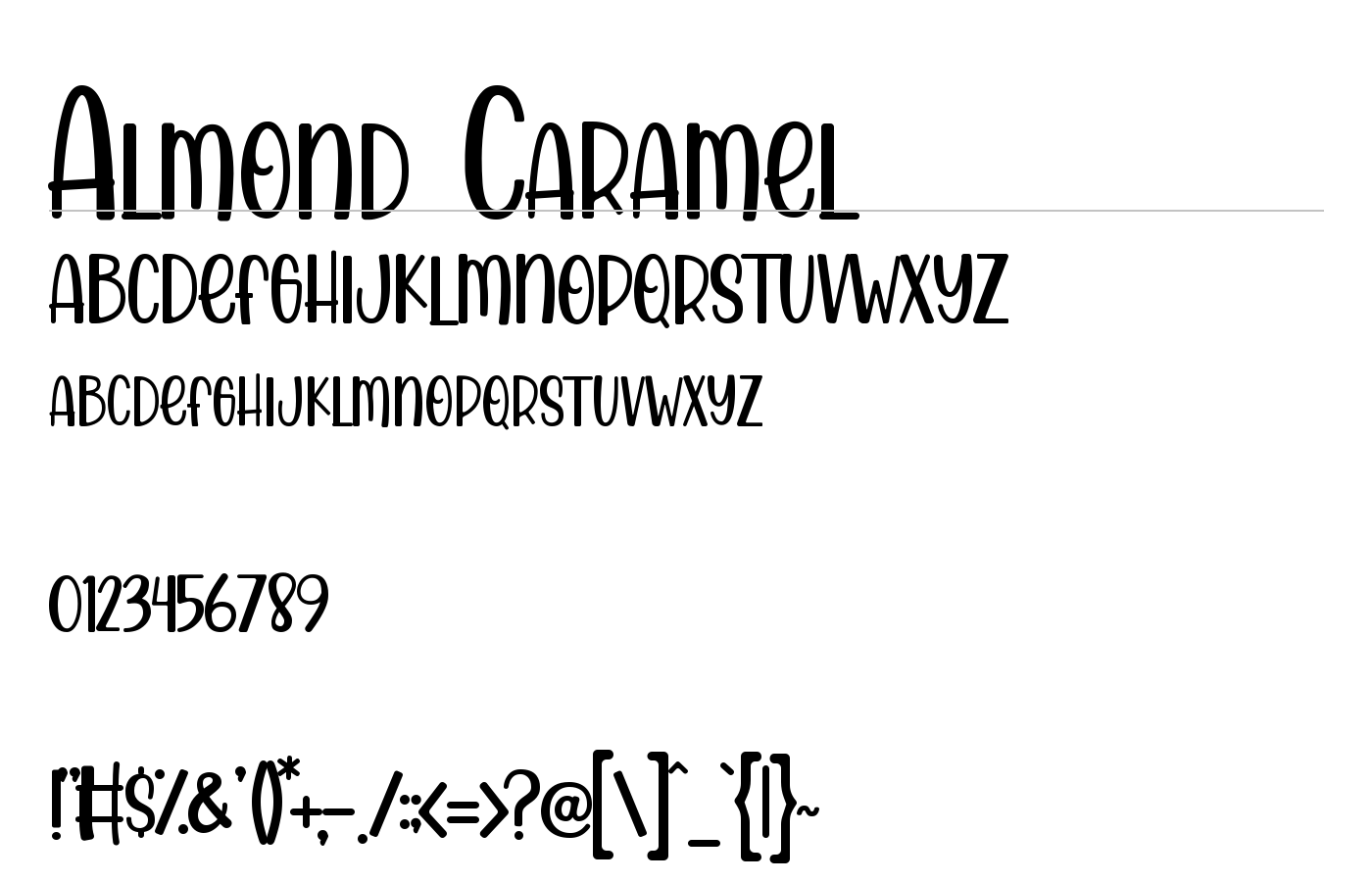
Almond Caramel is a playful, tall sans serif font featuring narrow letterforms with a hand-drawn feel, giving it a quirky and approachable personality. Its consistent stroke weight and slight irregularities create an informal, friendly vibe, making it ideal for casual branding, children’s books, or lighthearted headlines. This font works best where a unique, creative touch is needed to evoke warmth and creativity.
Almond Caramel Font
About Almond Caramel Font
| Font family | Almond Caramel Font |
| Designer | Dimas Prasetyo |